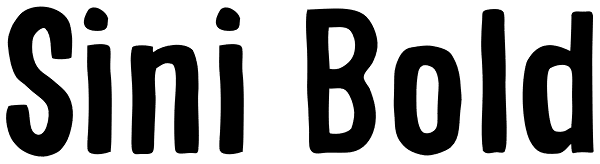
Sini
Sini is a warm and delicious hand-lettered fontface in two styles: bold and ornaments. Sini is recommended for use as a display typeface.
Sini Bold